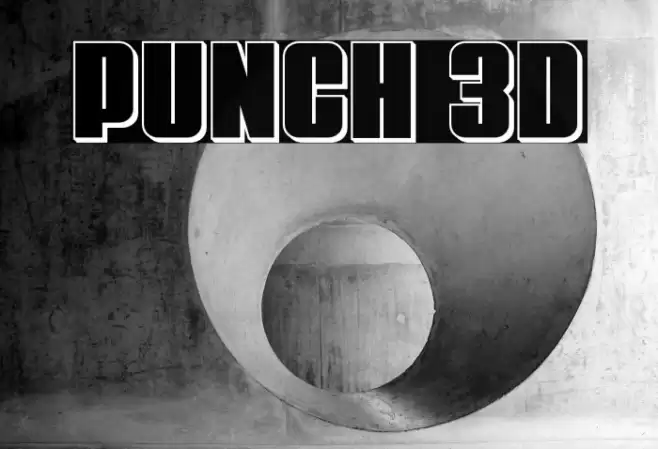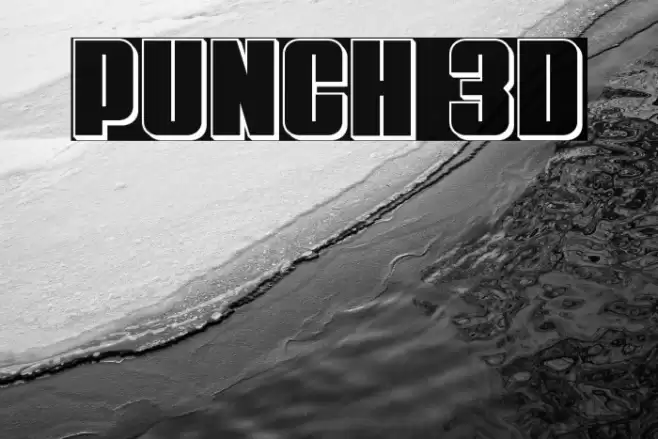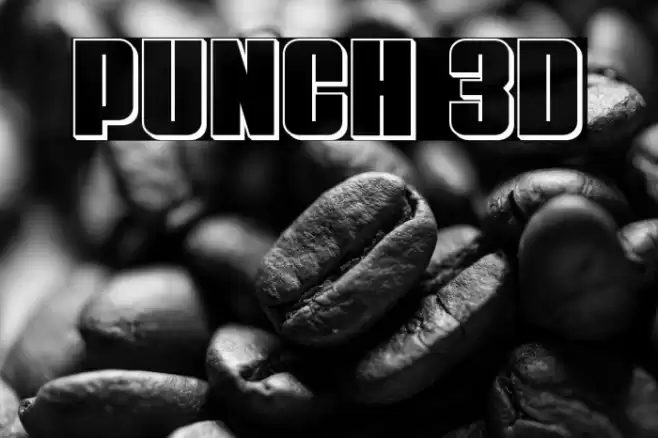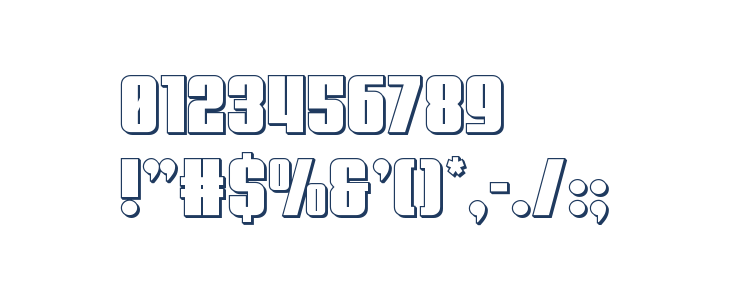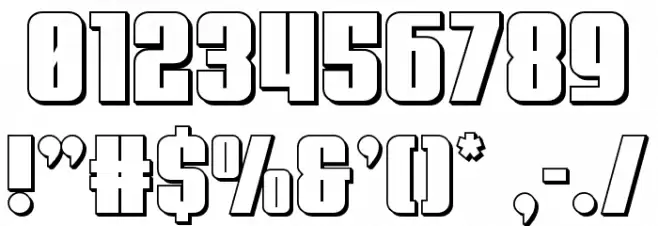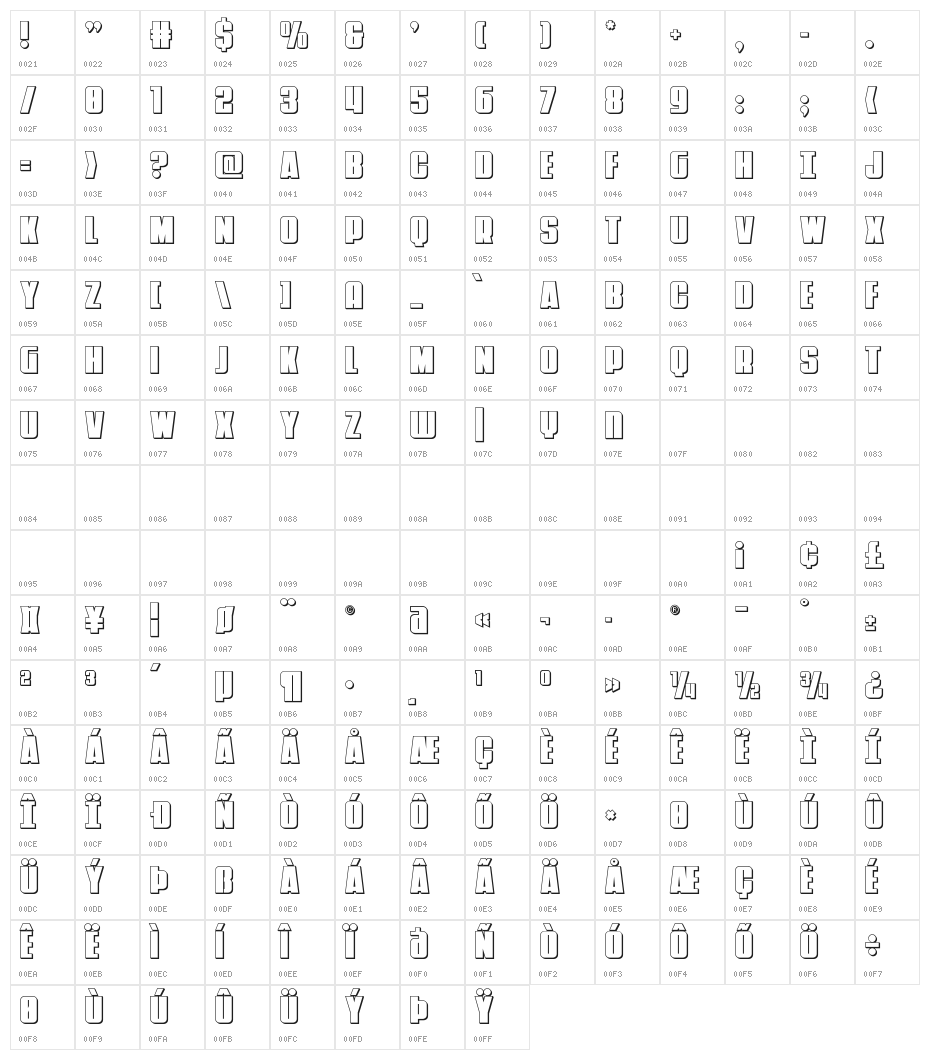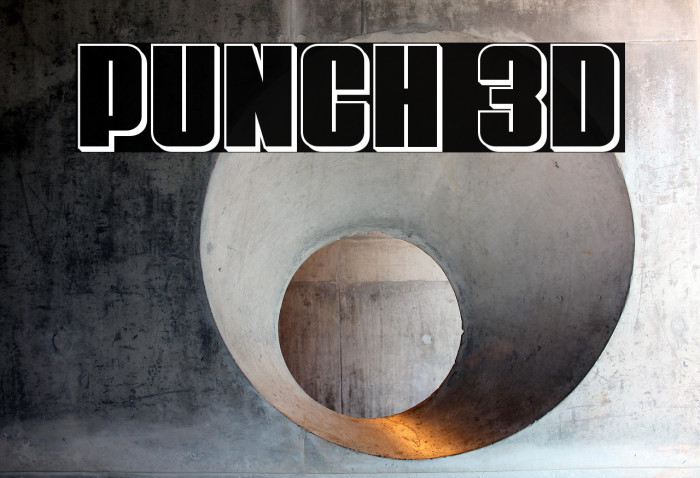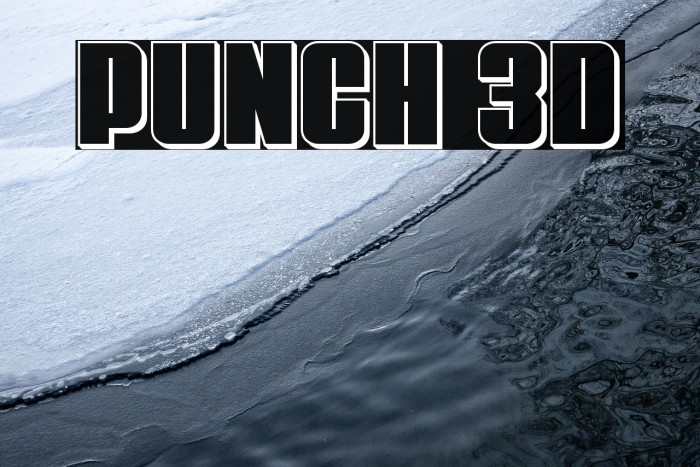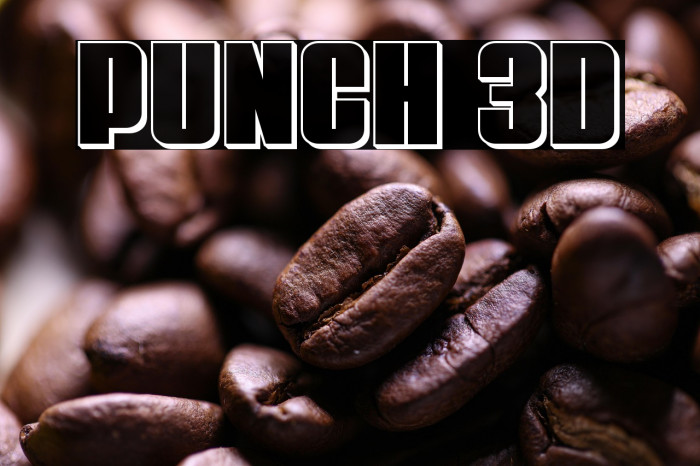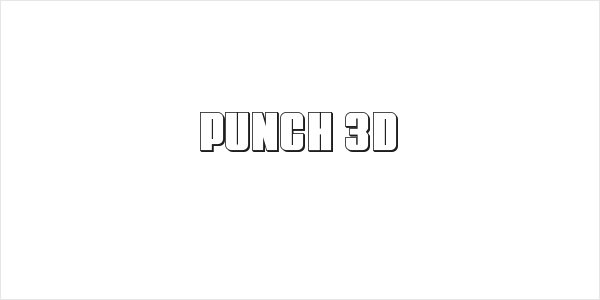
Punch 3D Font
Punch 3D Description
This font features a bold, three-dimensional appearance with a strong, impactful presence. The characters are outlined with a thick black border, giving them a striking and robust look. The interior of each letter is filled with a solid color, enhancing the 3D effect. The font maintains a uniform width across all characters, providing a balanced and cohesive appearance. Its geometric structure and clean lines make it highly legible, even from a distance. The font's style is reminiscent of retro and vintage designs, yet it retains a modern edge due to its boldness and clarity.
A bold, 3D font with thick outlines and a retro-modern style from Regular fonts.
- Proposed Projects: Ideal for posters, headlines, logos, and any design requiring a strong visual impact.
- Overall Style: Retro, Modern